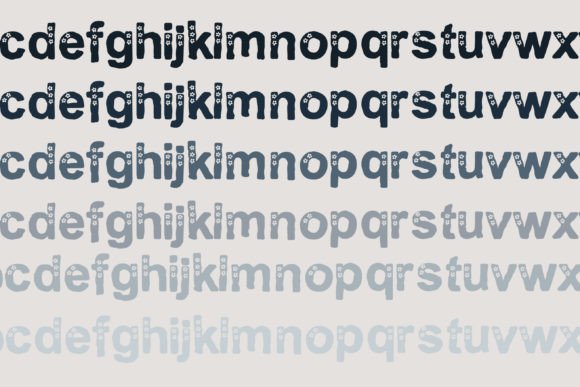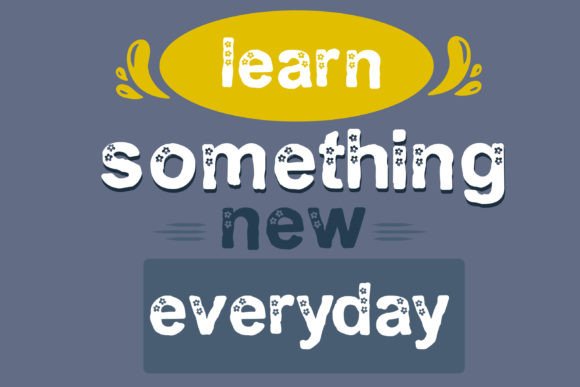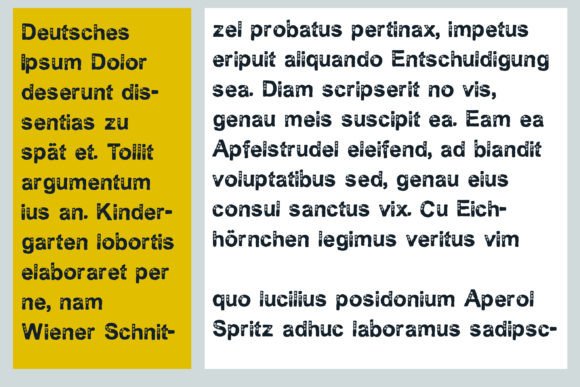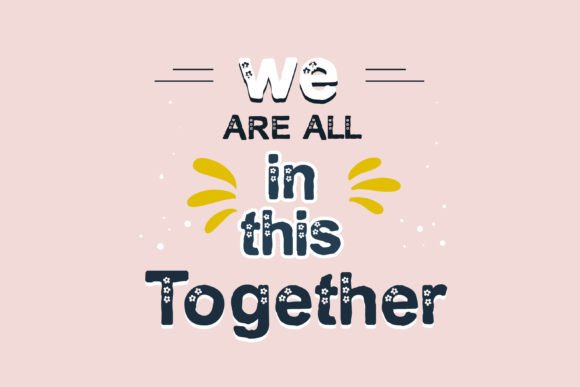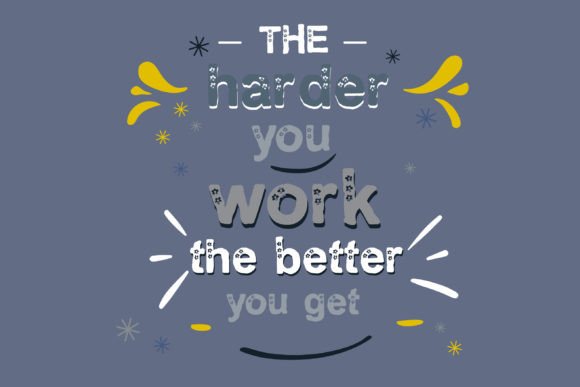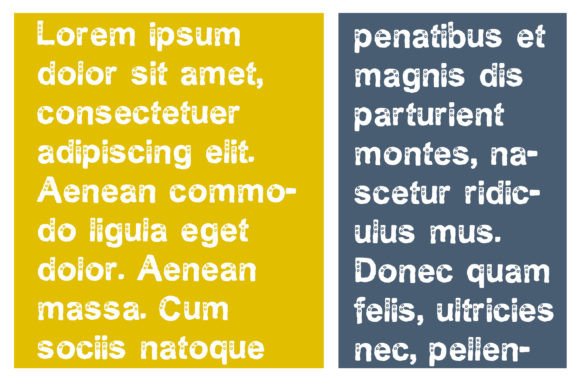
Introduction to Elusive Spring Font
Felicidad Floral is a stylish sans serif font with decorative floral patterns.
Its clean letters are adorned with delicate flower designs, making it perfect for adding a touch of elegance to your projects .
Key Features of Elusive Spring Font